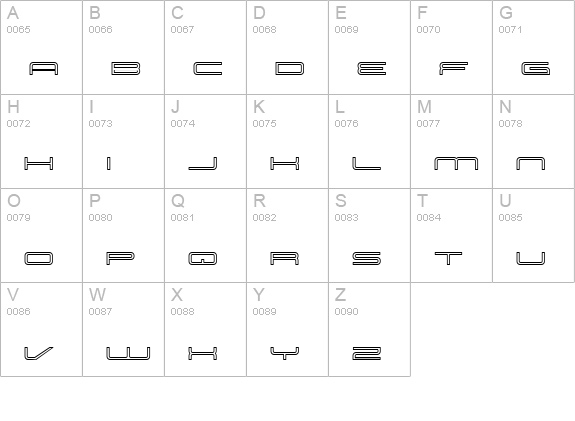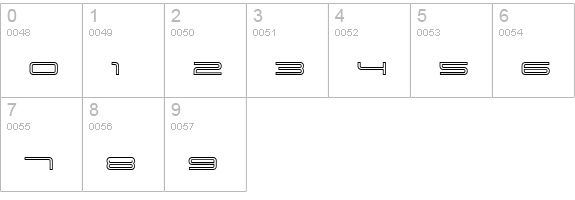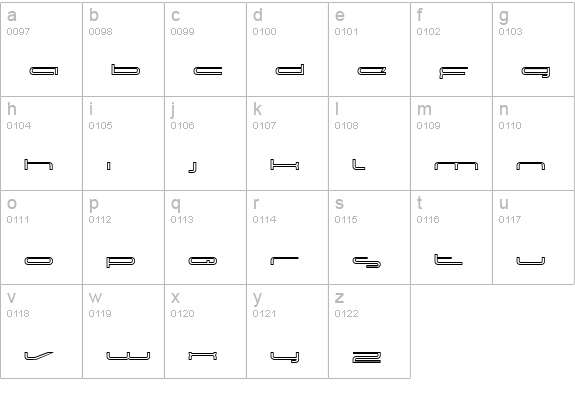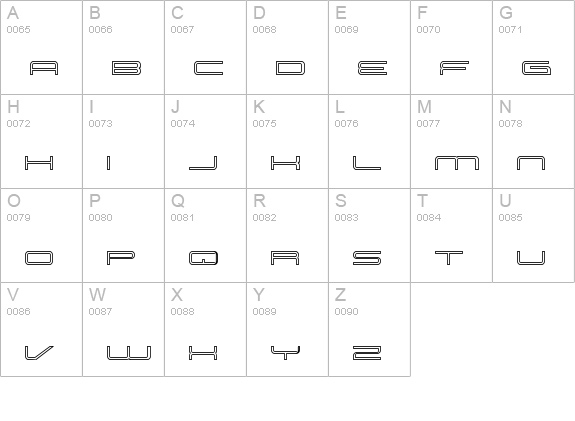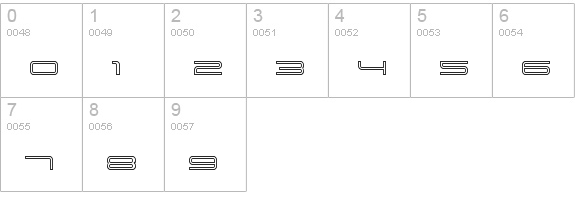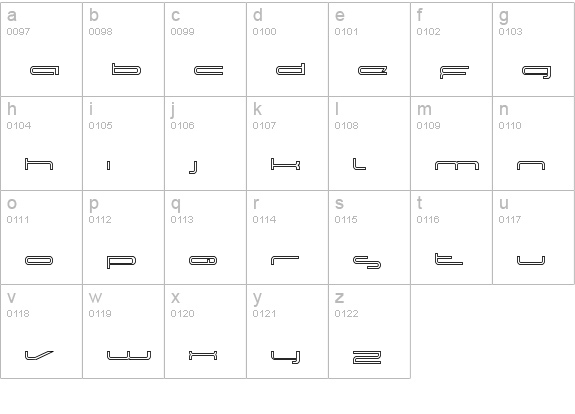
Neutronica subworld Font Details
Neutronica subworld font is a captivating and futuristic typeface that brings a touch of innovation to your design projects. With its sleek lines and geometric shapes, this font exudes a sense of modernity and sophistication. Whether you are working on branding, logos, or editorial design, Neutronica subworld font is sure to make a statement. What sets Neutronica subworld font apart is not only its striking visual appeal but also its versatility. This font is perfect for creating eye-catching headlines, attention-grabbing posters, or sleek website designs. Its clean and crisp appearance ensures readability while adding a touch of flair to your projects. The best part about Neutronica subworld font is that it is completely free to download at FontsMarket.com. This means that you can start using this stylish font in your projects right away, without any additional cost. Don't miss out on the opportunity to elevate your designs with the contemporary charm of Neutronica subworld font. Download it today and let your creativity soar!